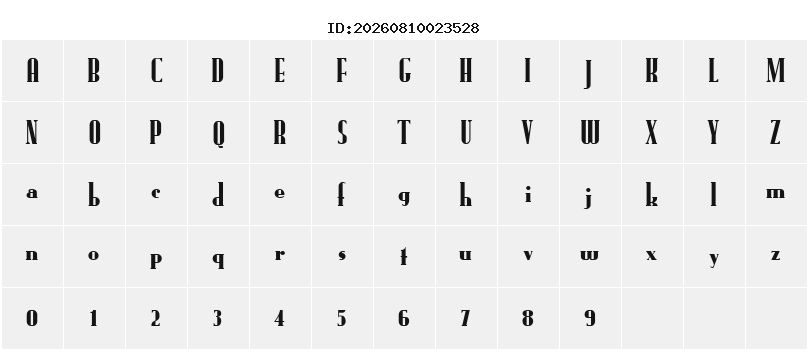
About PT Slim Jim.ttf
PT Slim Jim.ttf is a modern, elegant sans-serif font designed for ultimate readability and visual harmony. Perfect for branding, headlines, web design, and print materials.